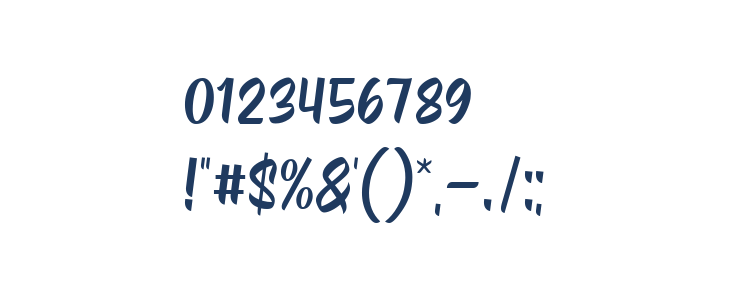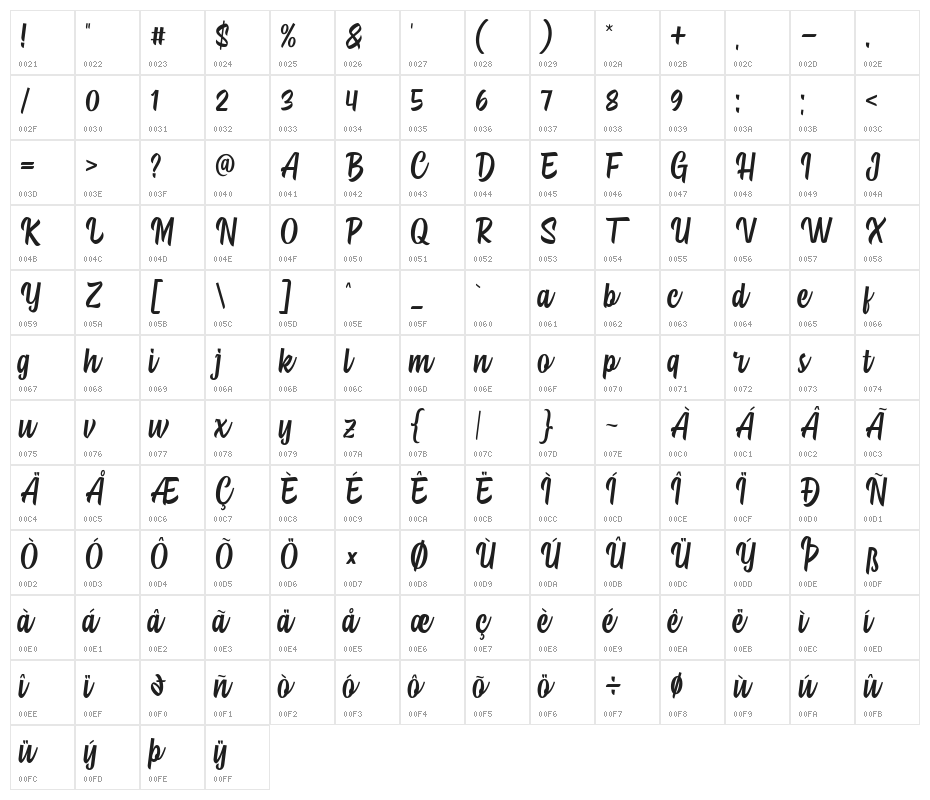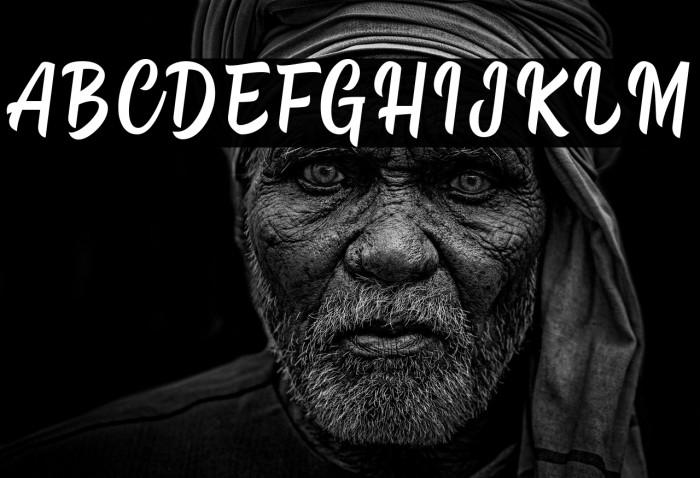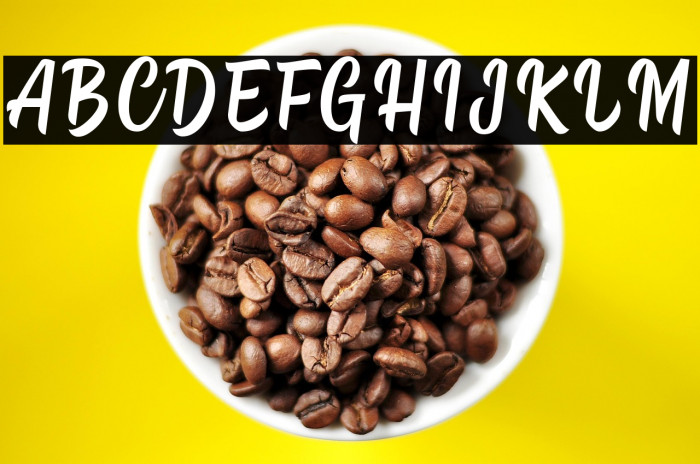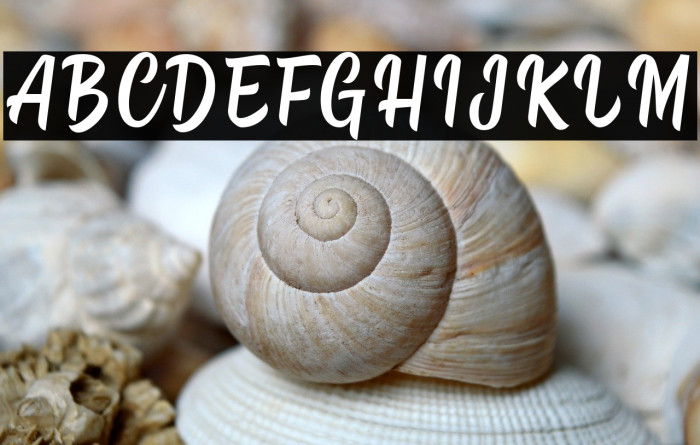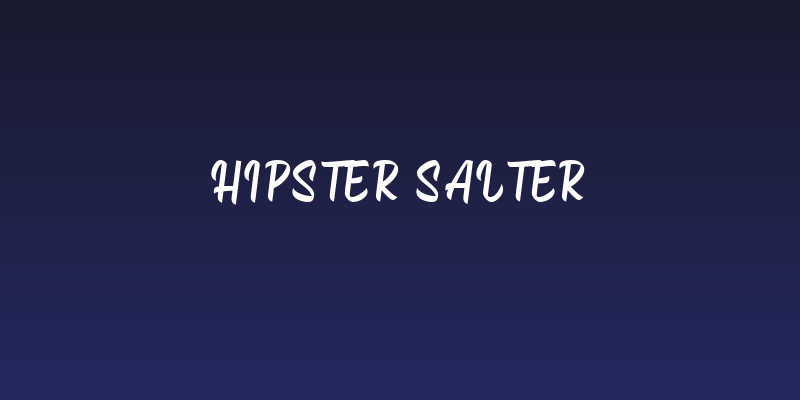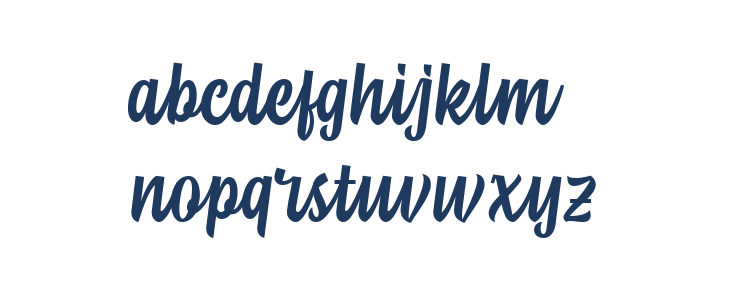
Hipster Salter Font
Hipster Salter Description
This font features a dynamic and flowing script style, characterized by its smooth, cursive letterforms that convey a sense of elegance and creativity. The uppercase letters are bold and slightly slanted, adding a touch of sophistication, while the lowercase letters maintain a consistent flow with rounded edges and a slight slant. The numerals are bold and clear, ensuring readability. Special characters are well-integrated, maintaining the overall aesthetic of the font. The design is versatile, suitable for a variety of creative projects where a personal and stylish touch is desired.